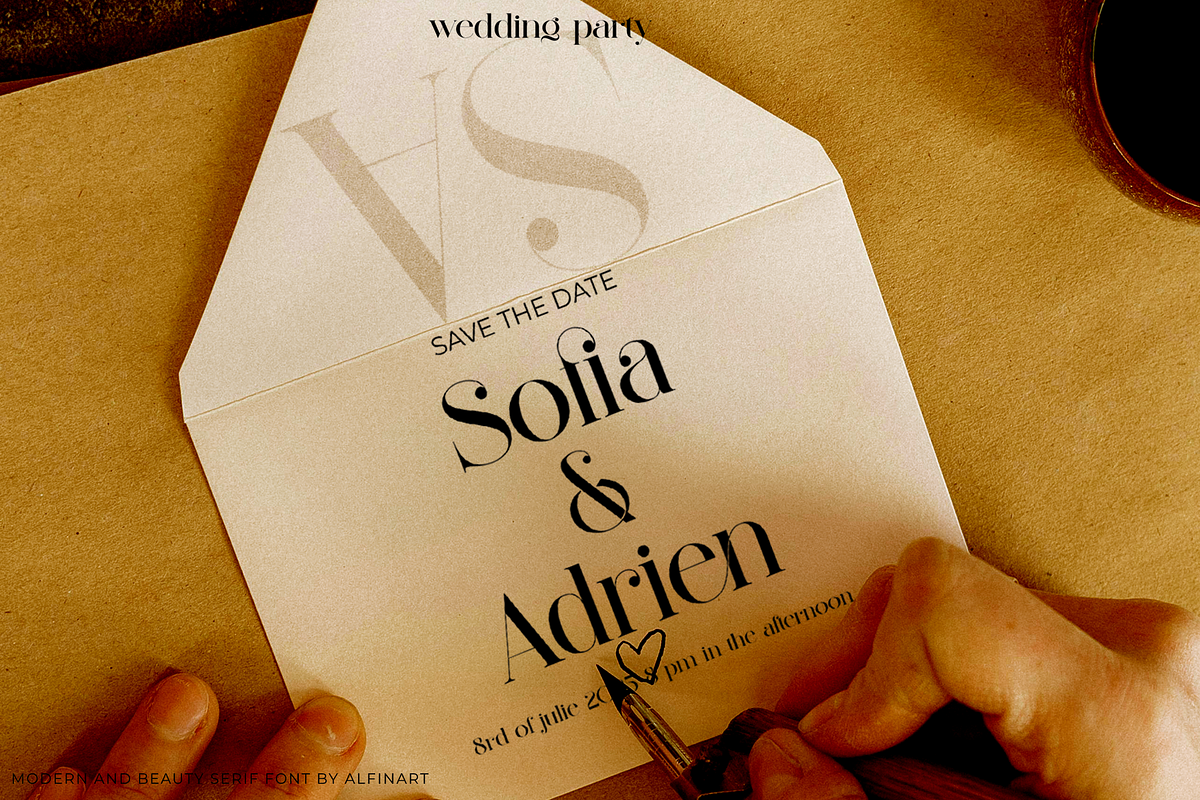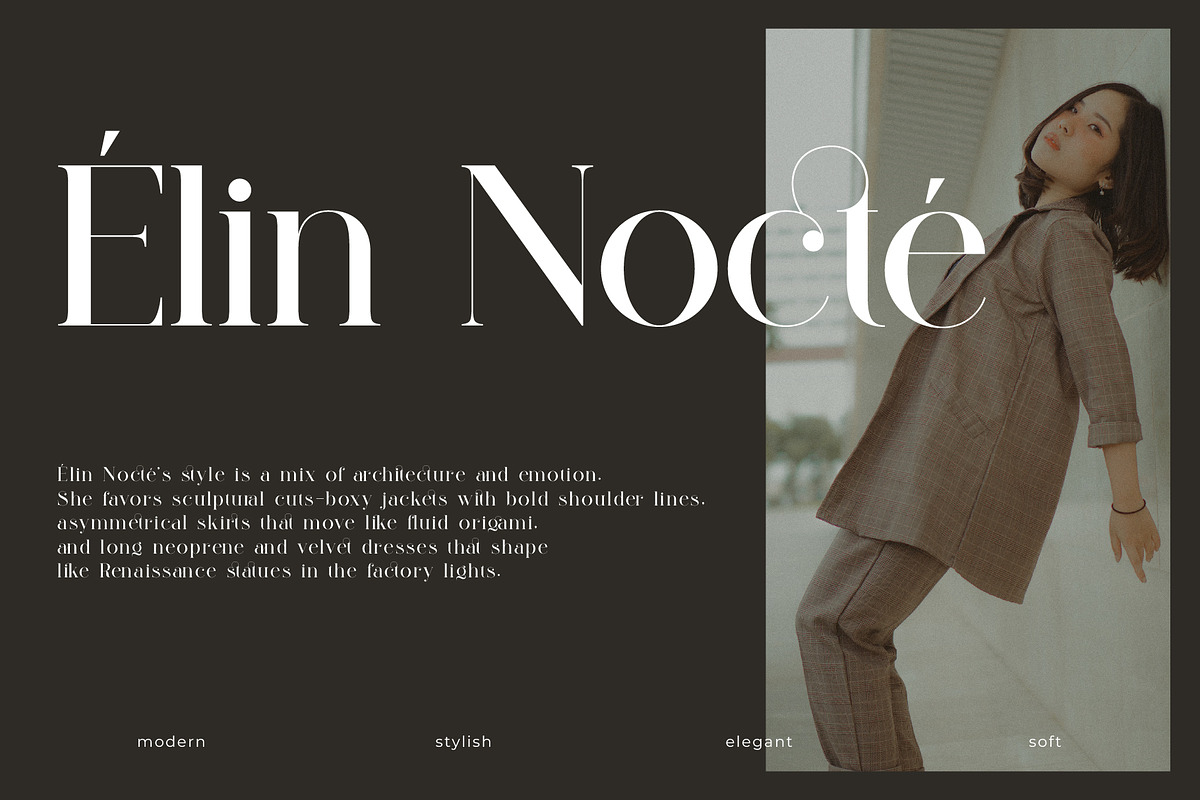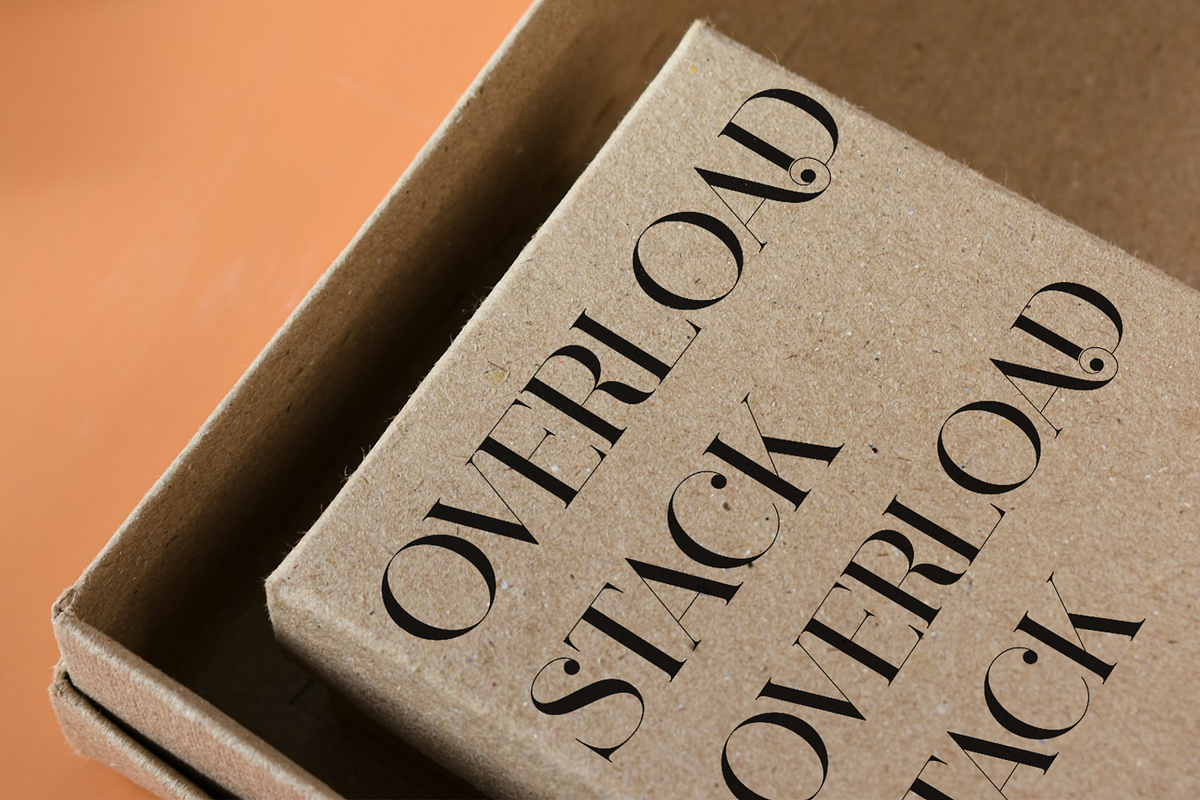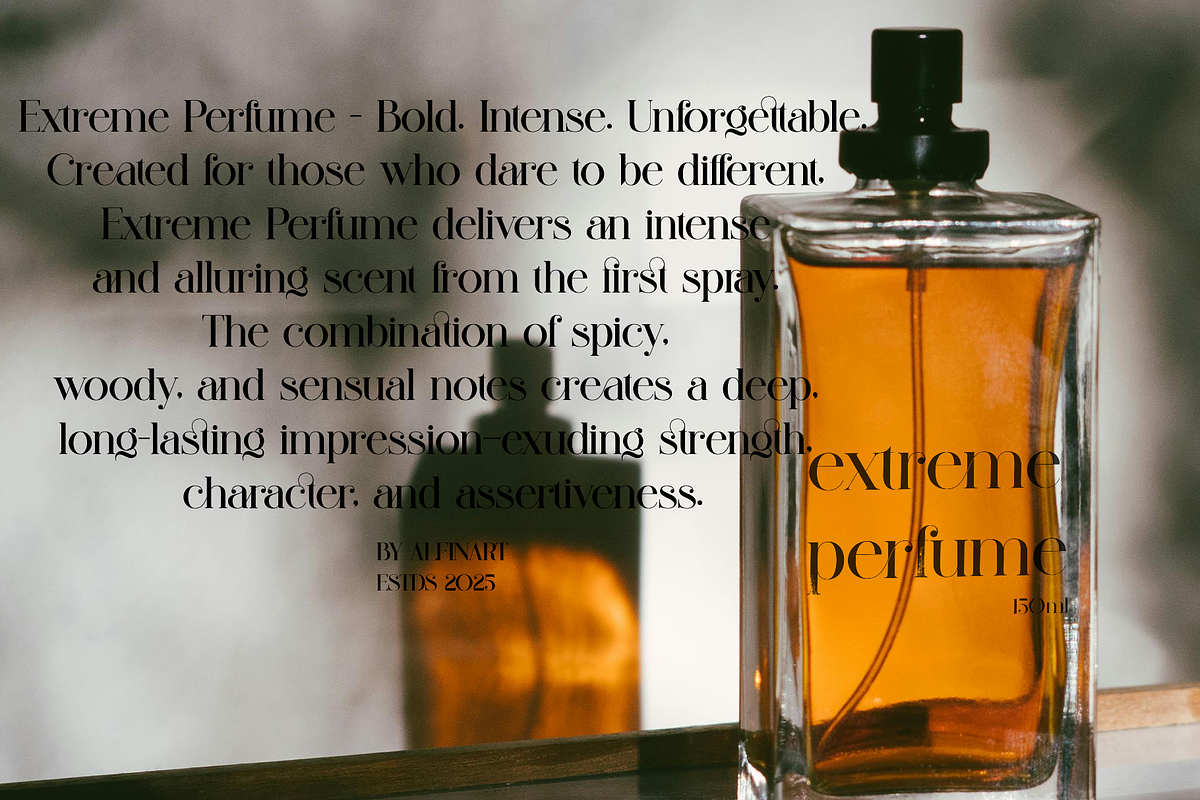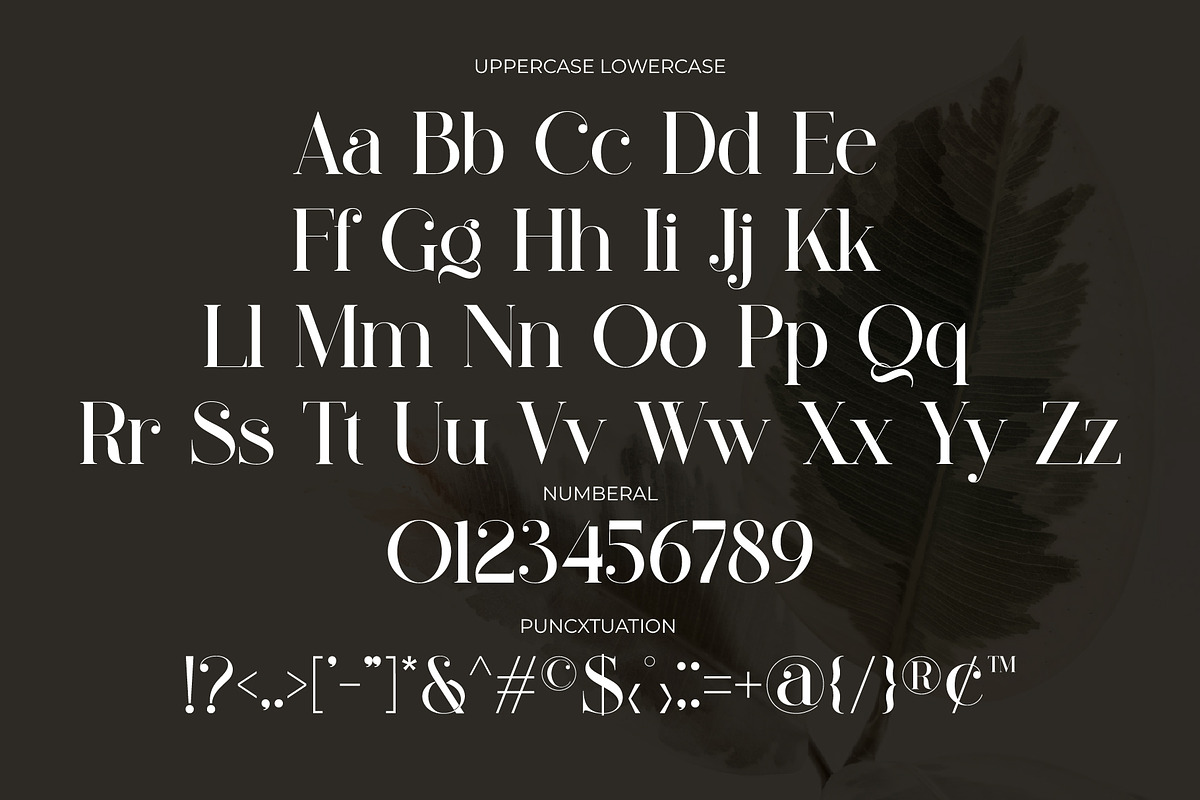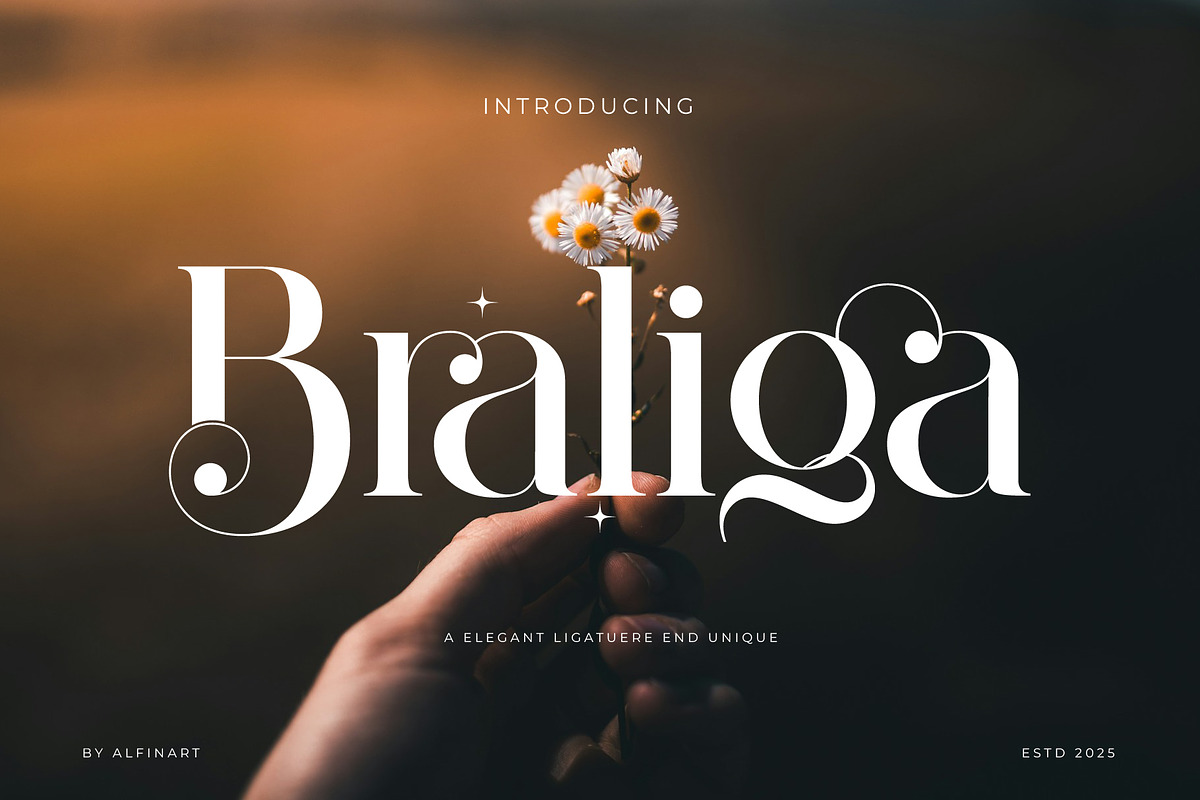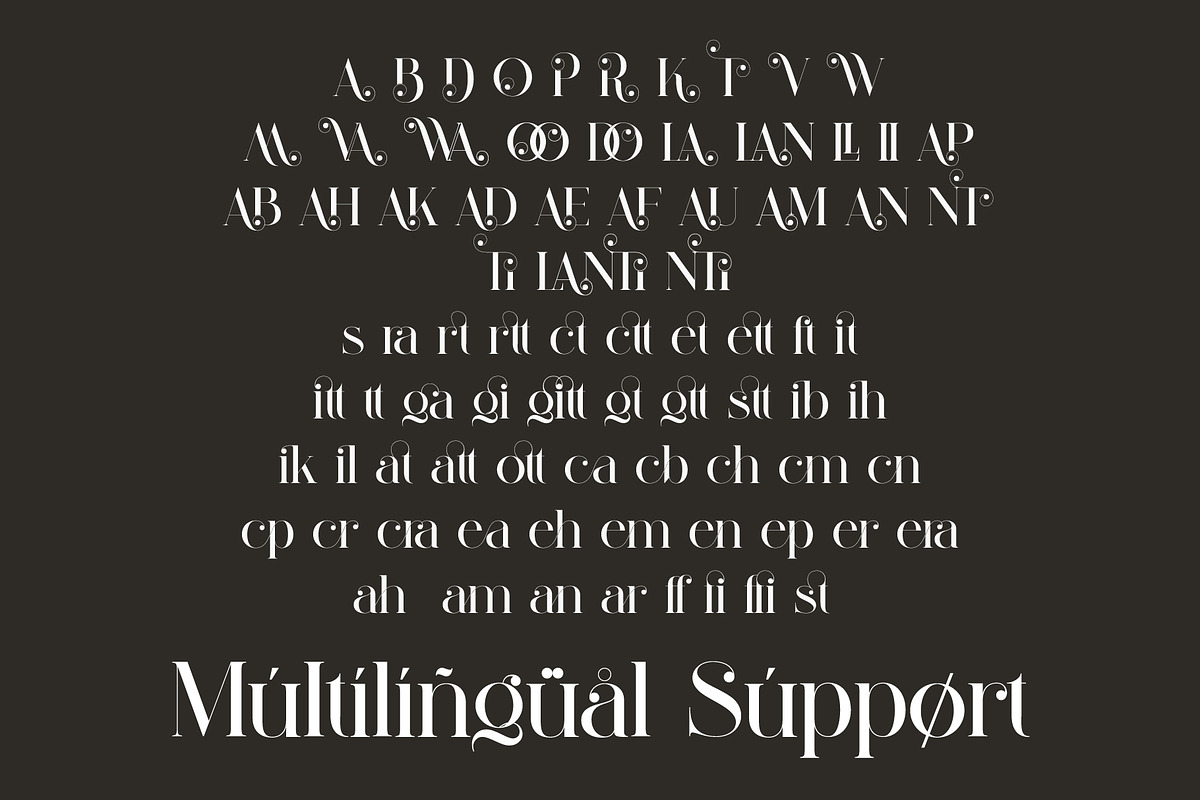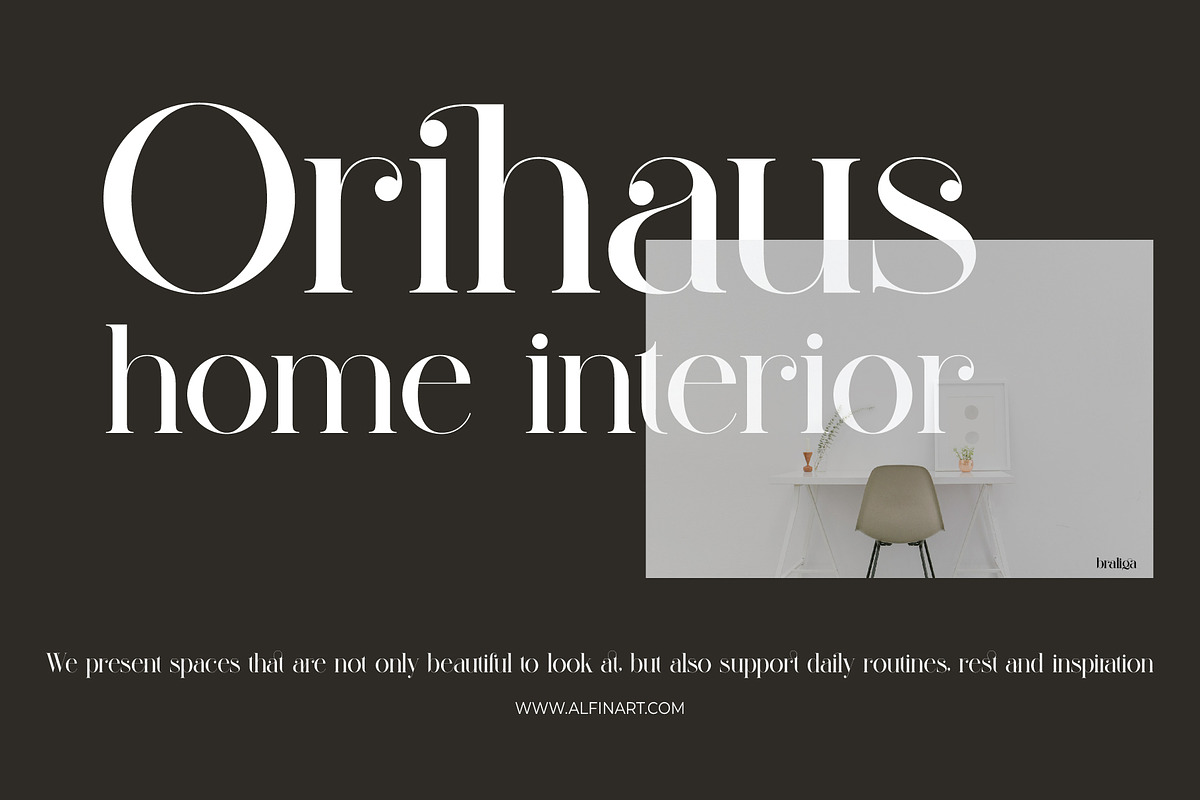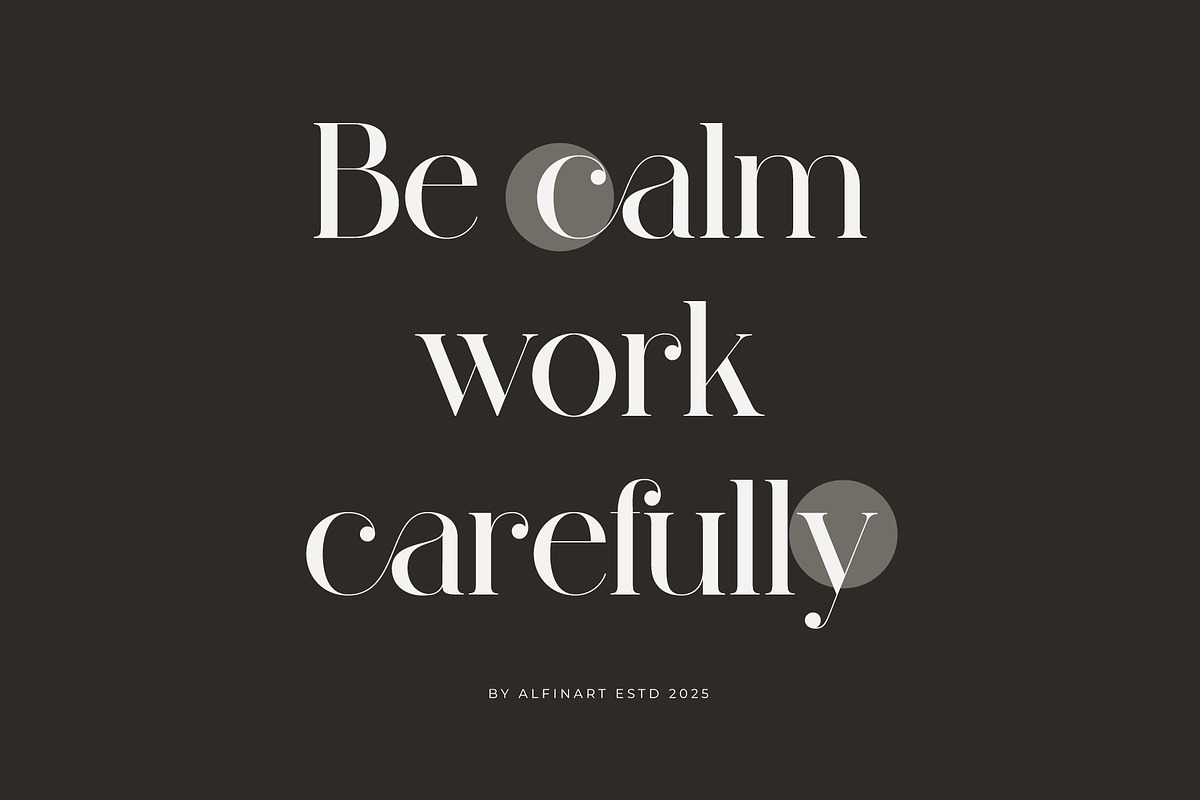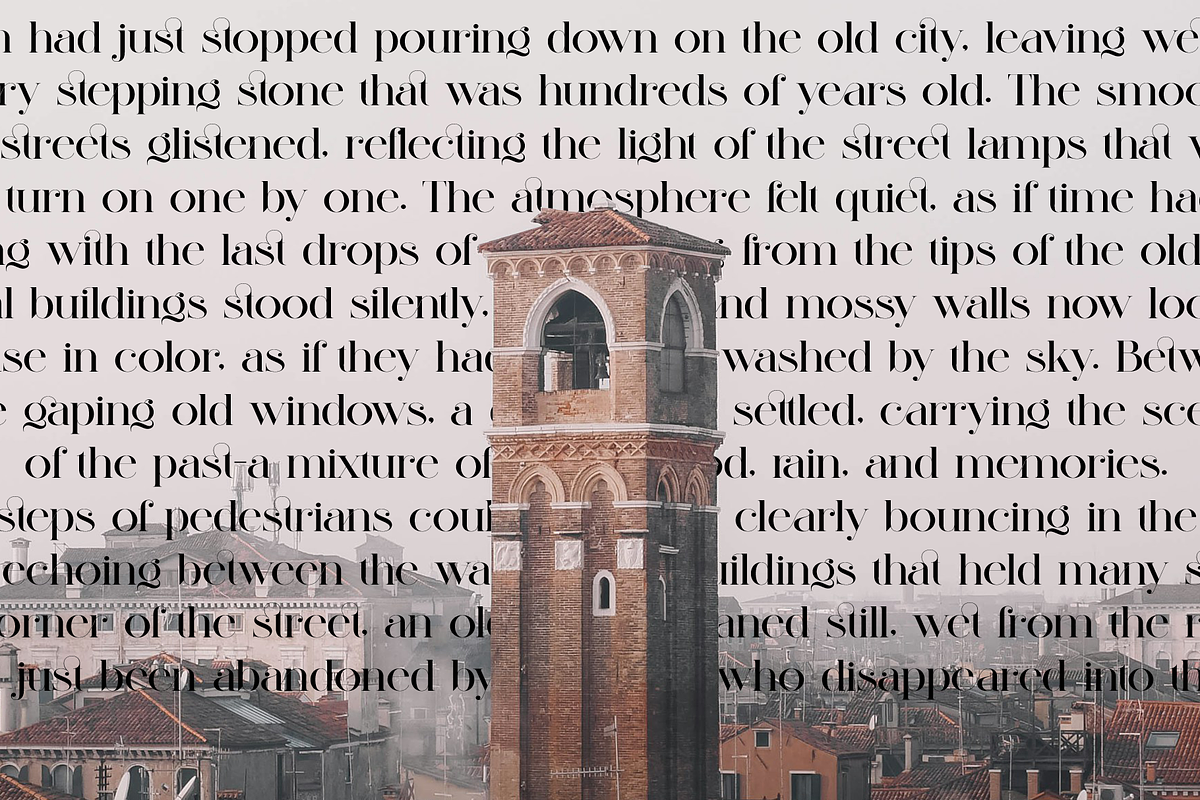
Braliga Elegant Ligature Serif
Braliga an elegant ligature serif modern font that evokes the beauty of fresh blooms and timeless elegance. With its bold yet refined ligatures, Braliga stands out as a sophisticated and feminine typeface. Perfect for upscale designs, whether for florals, fashion, or high-end branding, Braliga pairs the charm of classic serif styles with a modern twist. Every letter feels intentional, with a soft and graceful presence that elevates any project it touches.
Bring a touch of refinement and natural grace to your work with Braliga. Let this font breathe elegance into your designs, and watch them flourish with style and character.